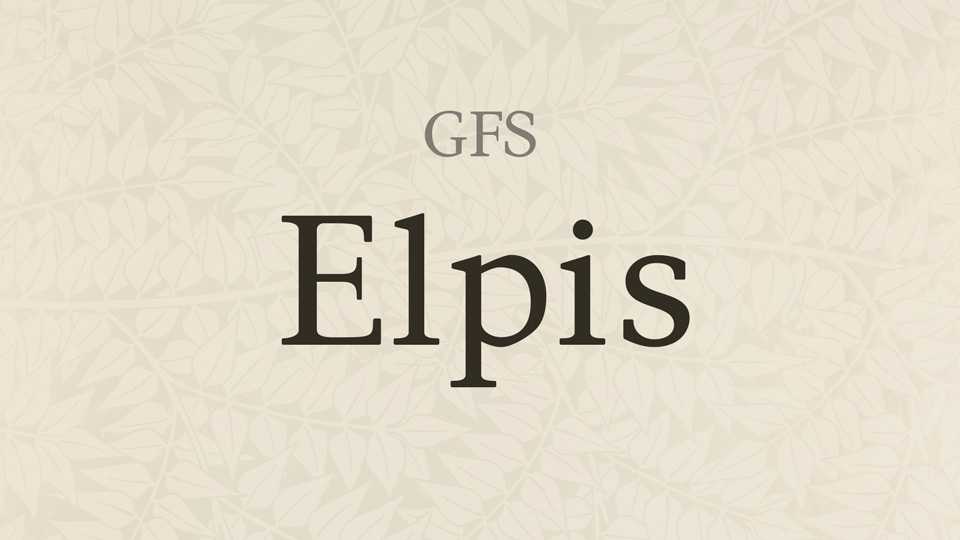
Download Elpis font, a robust serif typeface with a rather tight and clean design so as to be suitable even for inferior paper or low resolution printing. Elpis incorporates rhythm and smoothness in its letterforms.
Designer: Greek Font Society